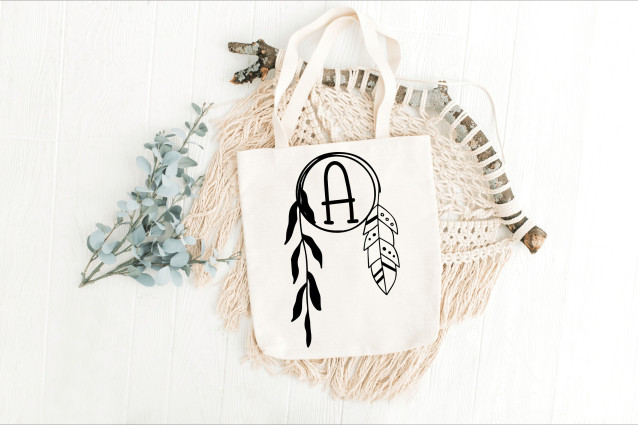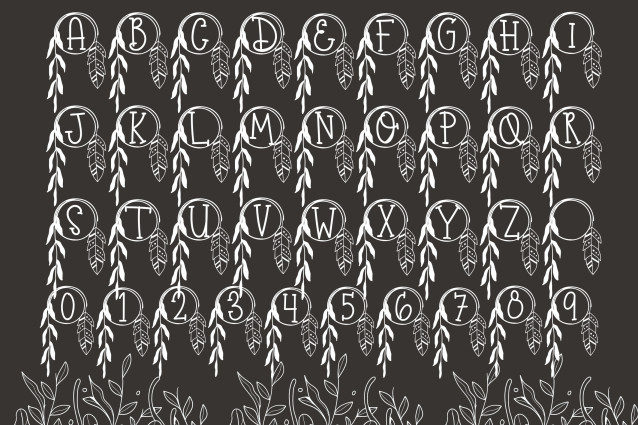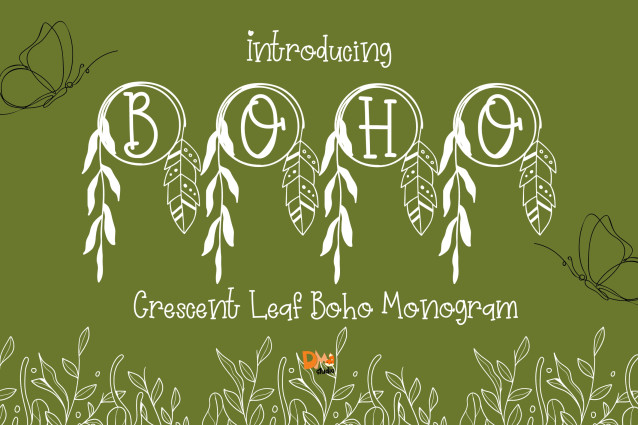
Crescent Leaf Boho Monogram Font
Crescent Leaf Boho Monogram is a celestial-inspired serif monogram font, featuring uppercase letters enhanced by graceful crescent moon shapes and flowing leaf accents. Perfect for bohemian wedding designs, spiritual branding, Cricut projects, and artisanal packaging, this typeface blends mystical energy with earthy elegance.